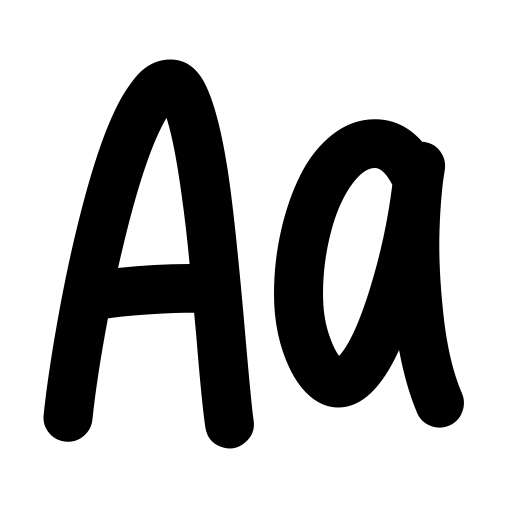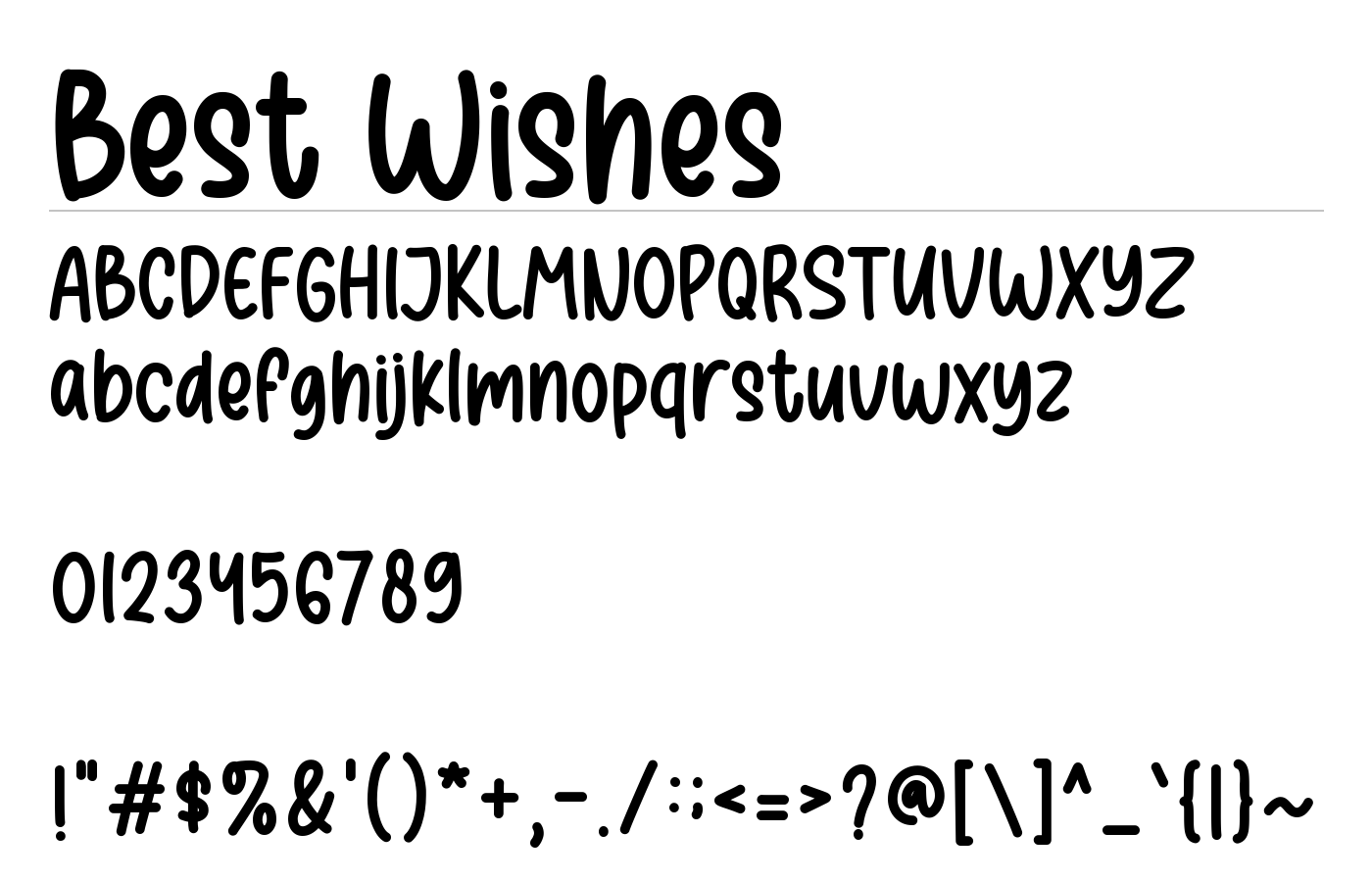
Best Wishes is a playful and friendly handwritten sans serif font with a casual, rounded style that feels warm and approachable. Its lively letterforms with moderate contrast and smooth curves make it perfect for informal branding, greeting cards, children’s materials, and fun headlines where a personal touch is desired. This font shines in designs that want to convey cheerfulness and creativity while maintaining readability and charm.
Best Wishes Font
About Best Wishes Font
| Designer | Risma Ramawi |
| Designer link | Nirmala Creative |